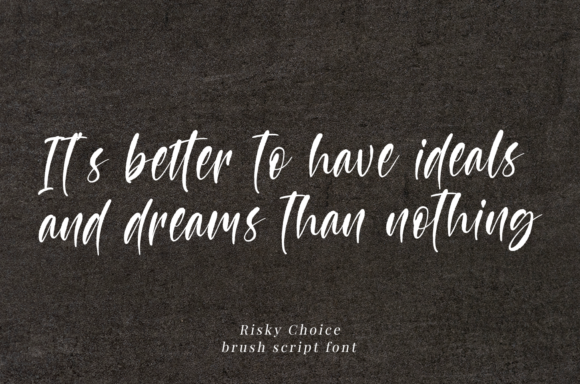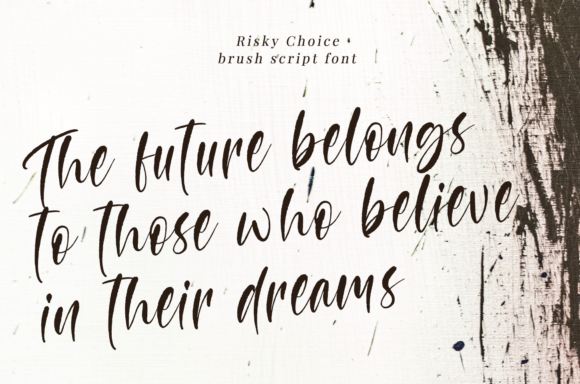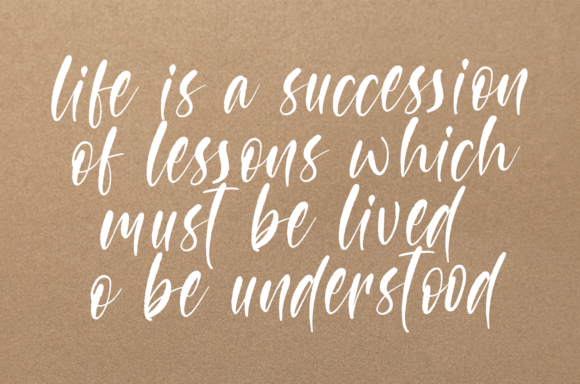
Introduction to Risky Choice Font
Risky Choice is a relaxed and flowing handwritten font, described by an elegant touch, perfect for your favorite projects.
Key Features of Risky Choice Font
Why Choose Risky Choice Font?
Risky Choice Font offers exceptional quality and versatility, making it a valuable addition to your design toolkit. Whether you’re creating for personal projects or commercial use, Risky Choice Font delivers professional results.